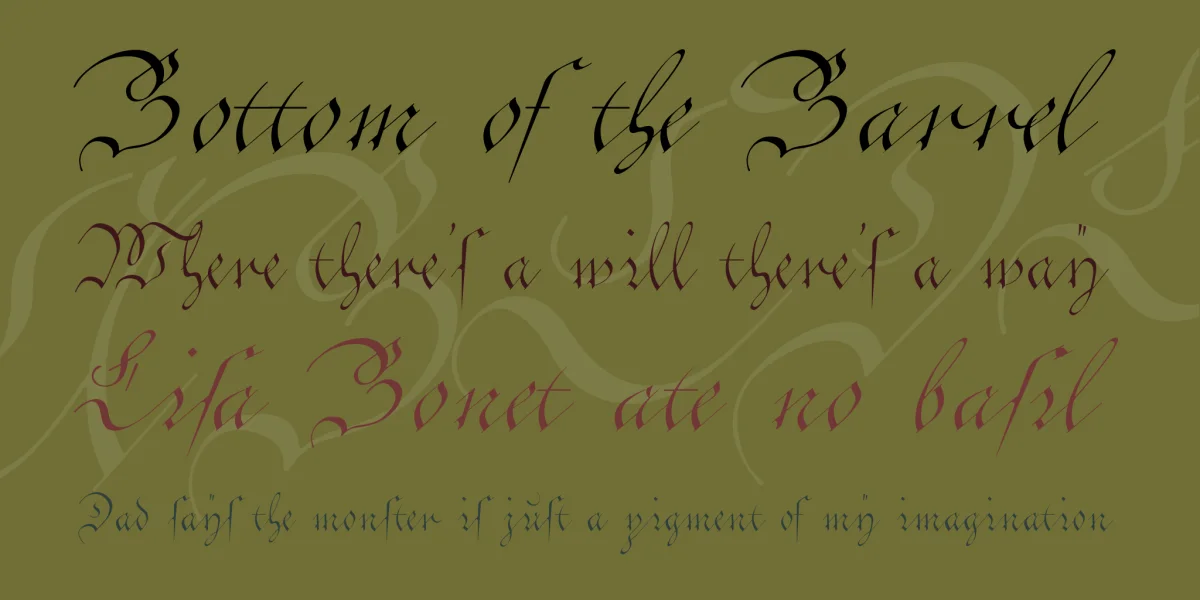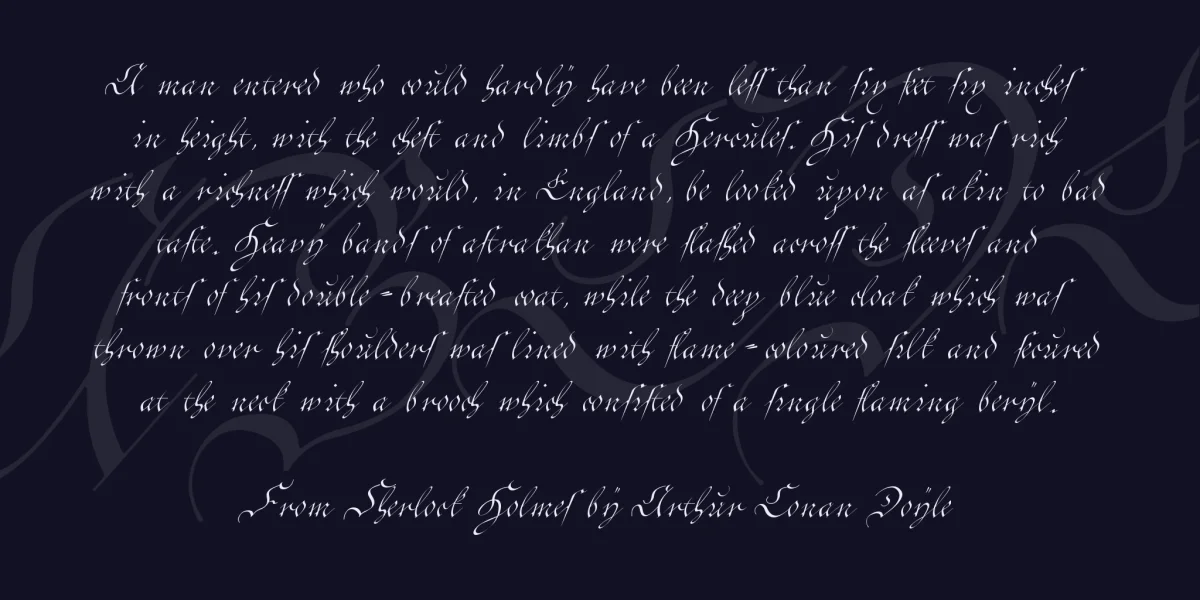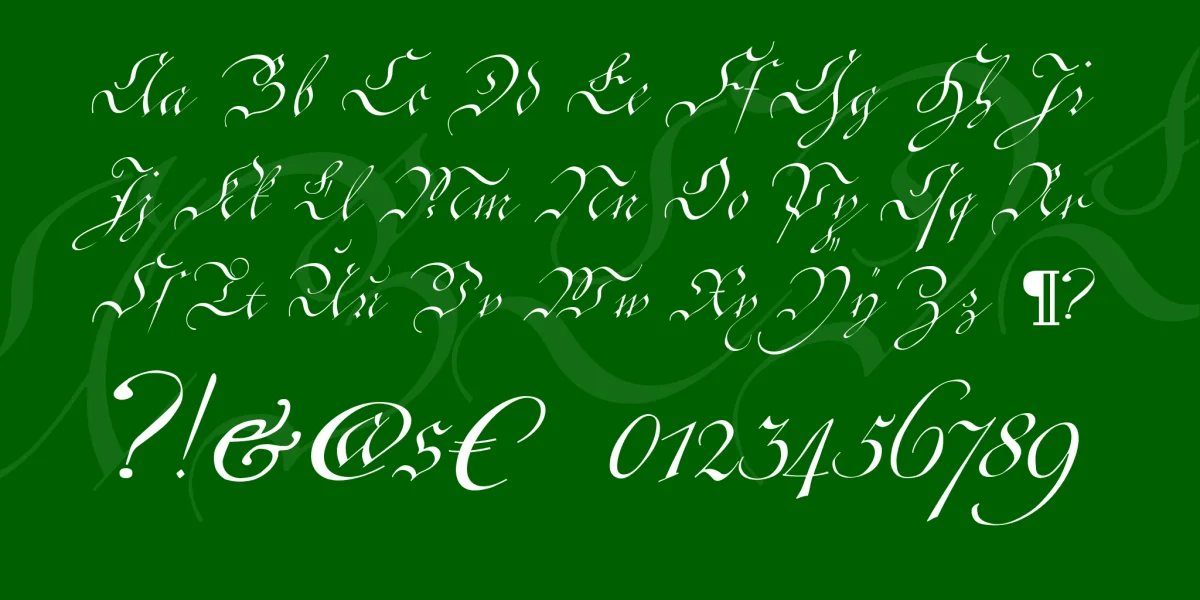
Historically, the firm has the authority of the rulers or of a city that the
Correspondence leads and archived, and is responsible for certifications.
Thus, these documents can be read clearly and easily, even by people who read the
are not as practiced, is a special form of the Latin script has been formed, the
was very carefully written to and, unlike the used in general use
German Kurreitschrift was less designed for smooth writing, the so-called
Clerical script.
It was to some extent an intermediate stage between a very clean lined Fraktur
which was used in documents for headings and italics, then in the explanatory
Comments and annexes were drafted.
The present firm was writing after the writing masters book "The teutsche Kurrent
Firm-and fracture-writing in a theoretical and practical instruction, to use the
School and private lessons, "which in 1788 in Strasbourg by Johann Friedrich Kichel
was issued, has been designed. The individual pages of this book were the Mainz
Engraver Henry Hugo razor Cöntgen who worked at that time for such projects often
has.
The presented in this book clerical script in other works Cöntgens since I again
met, I have the - slightly adapted to the constraints of a computer font
Font named after Cöntgen.
As in other fracture and writing journals I'm writing this again from the
occupancy standard deviation standardized to some special characters and ligatures convenient and
to make available without additional programs. The font has also, as was generally the case 2
different signs for the small s The less frequently used "round" s closing I again
the $ character set. Here are the special characters